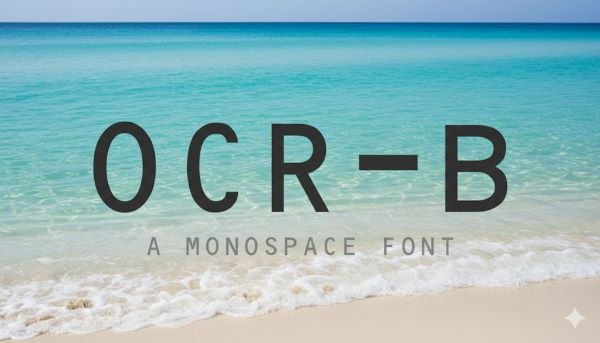
OCR-B Font
OCR-B Font is a classic sans serif typeface originally designed by Adrian Frutiger in 1968 and enhanced by Raisty with numerous modern improvements. Built on a precise monospace structure, this font delivers clean, professional aesthetics ideal for technical documents, data displays, coding projects, and applications requiring optimal machine readability. OCR-B Font seamlessly bridges vintage optical character recognition heritage with contemporary design sophistication, offering timeless functionality across diverse professional contexts.
Font Style: Sans Serif
Category: Monospaced